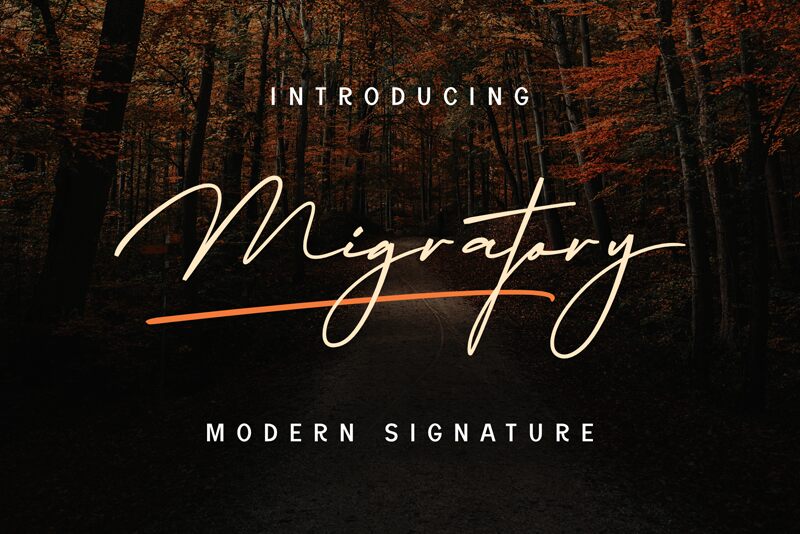
Migratory, the stunning handwritten signature font by DumadiStyle is here to elevate your projects. With its elegant curves and graceful strokes, this extra-light font adds a touch of sophistication to any design. Perfect for personal branding, wedding invitations, or luxury fashion brands, Migratory's delicate lines bring a sense of refinement and exclusivity to your work. Whether you're creating a logo or designing a website, this font's unique style will make it stand out from the crowd. Say goodbye to generic fonts and embrace the elegance of Migratory for your next project.